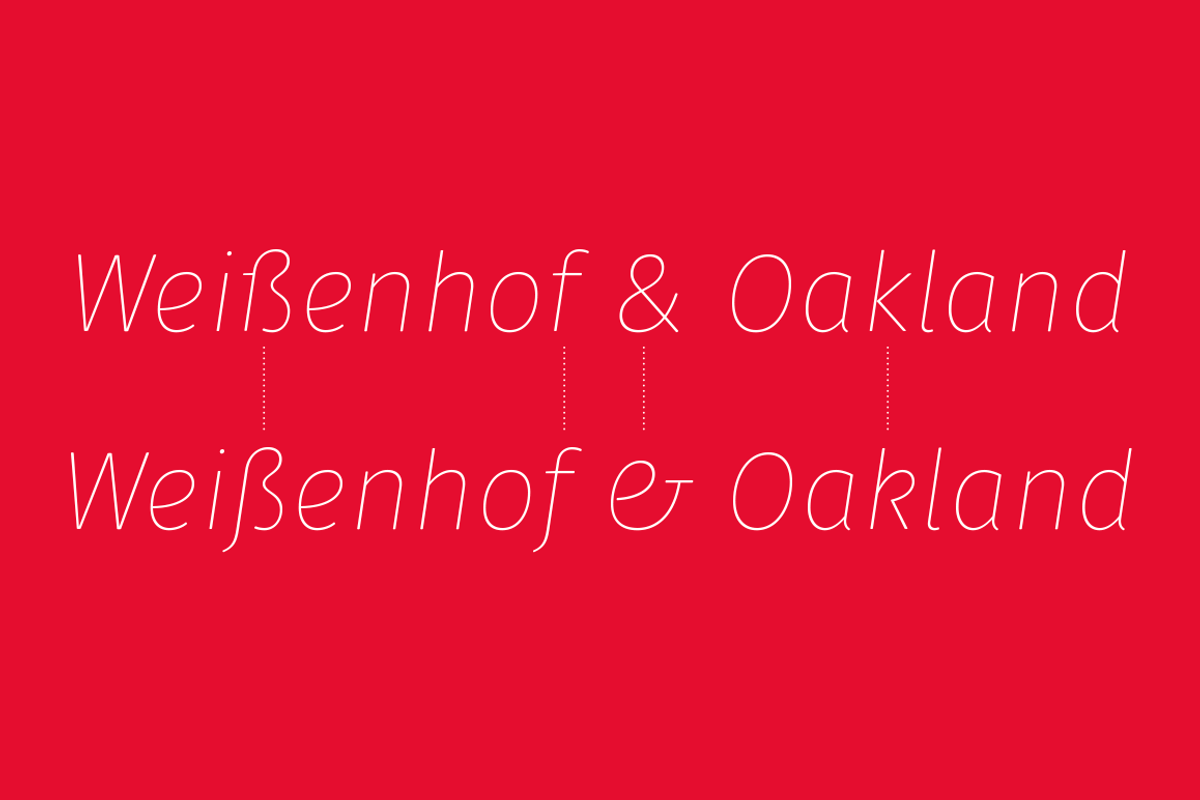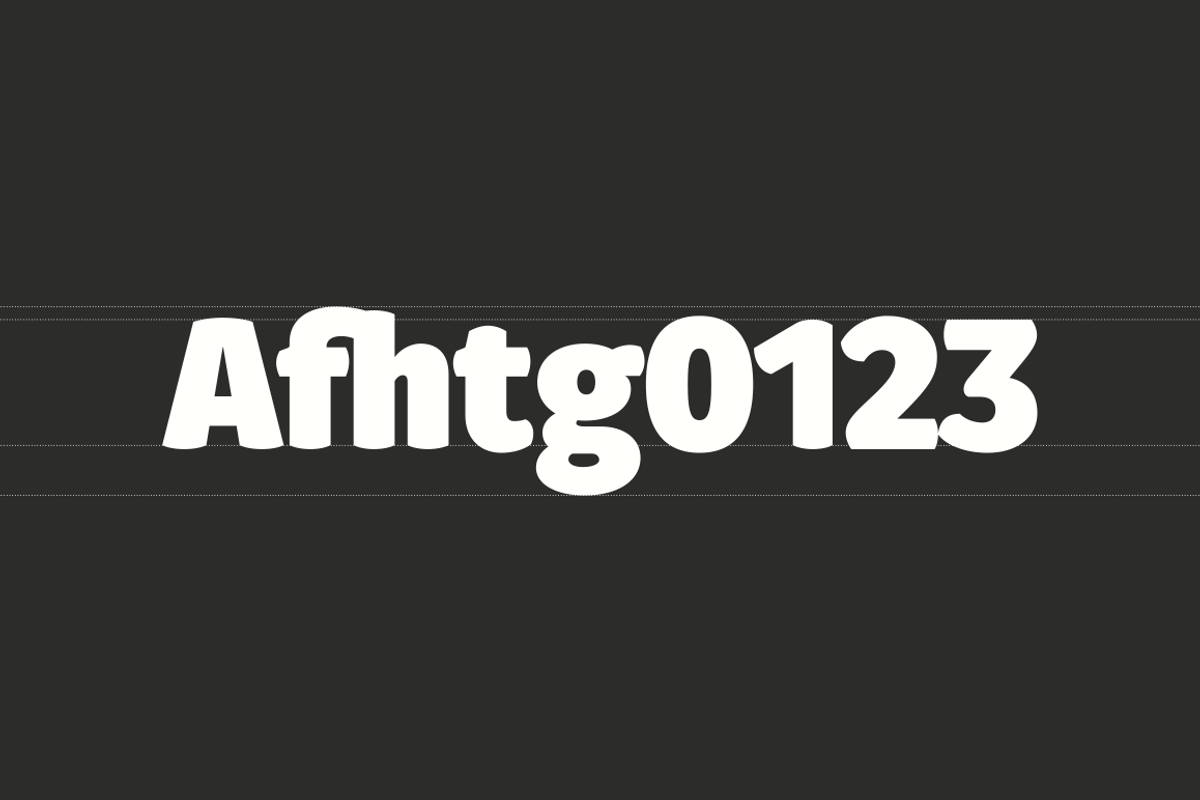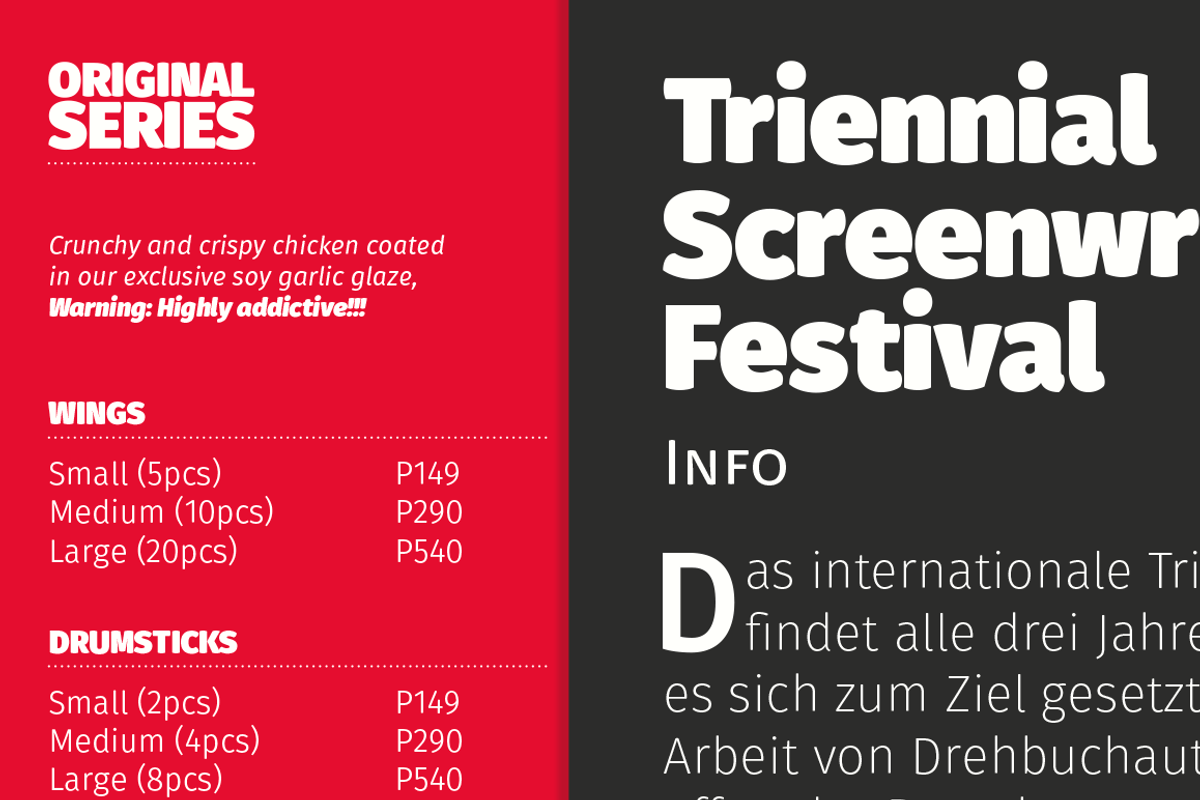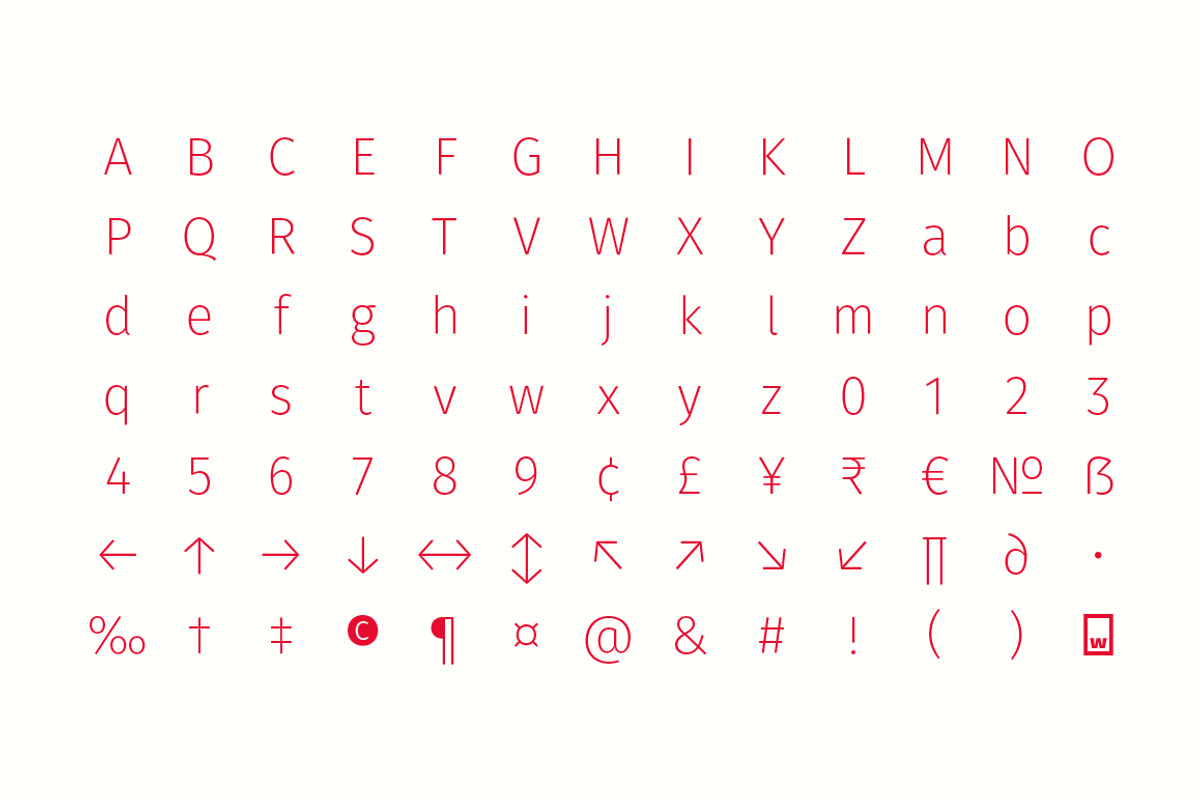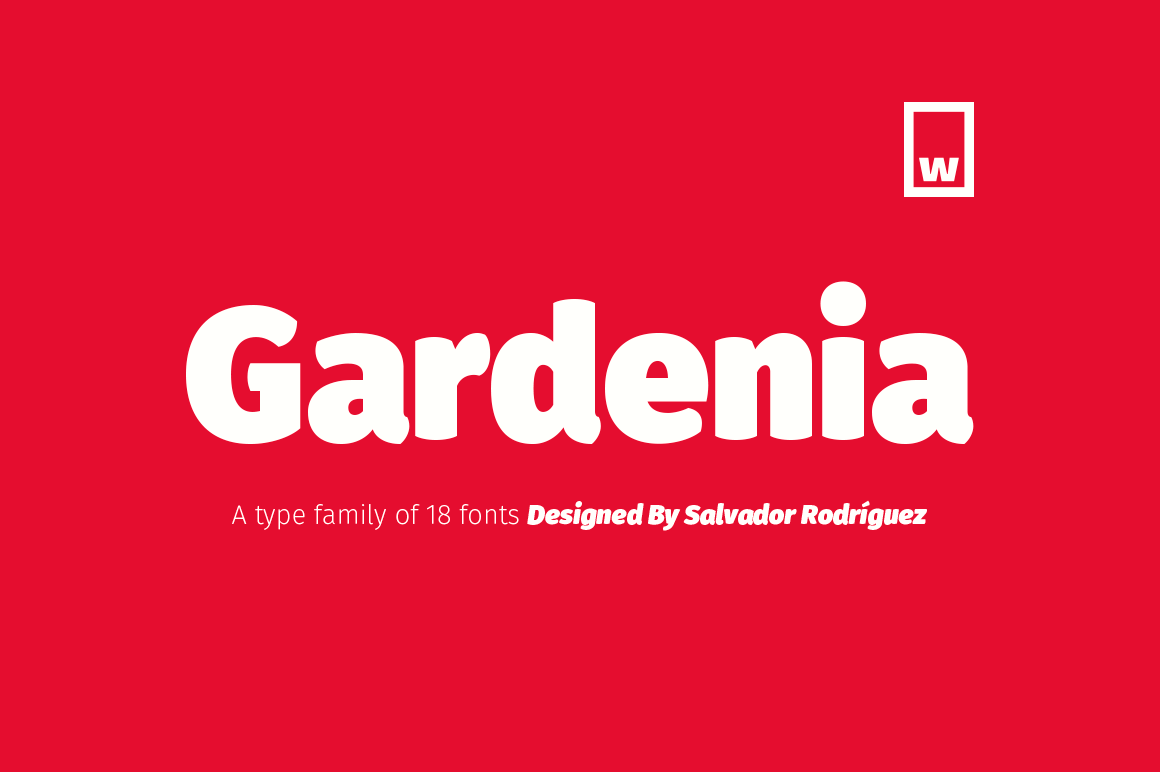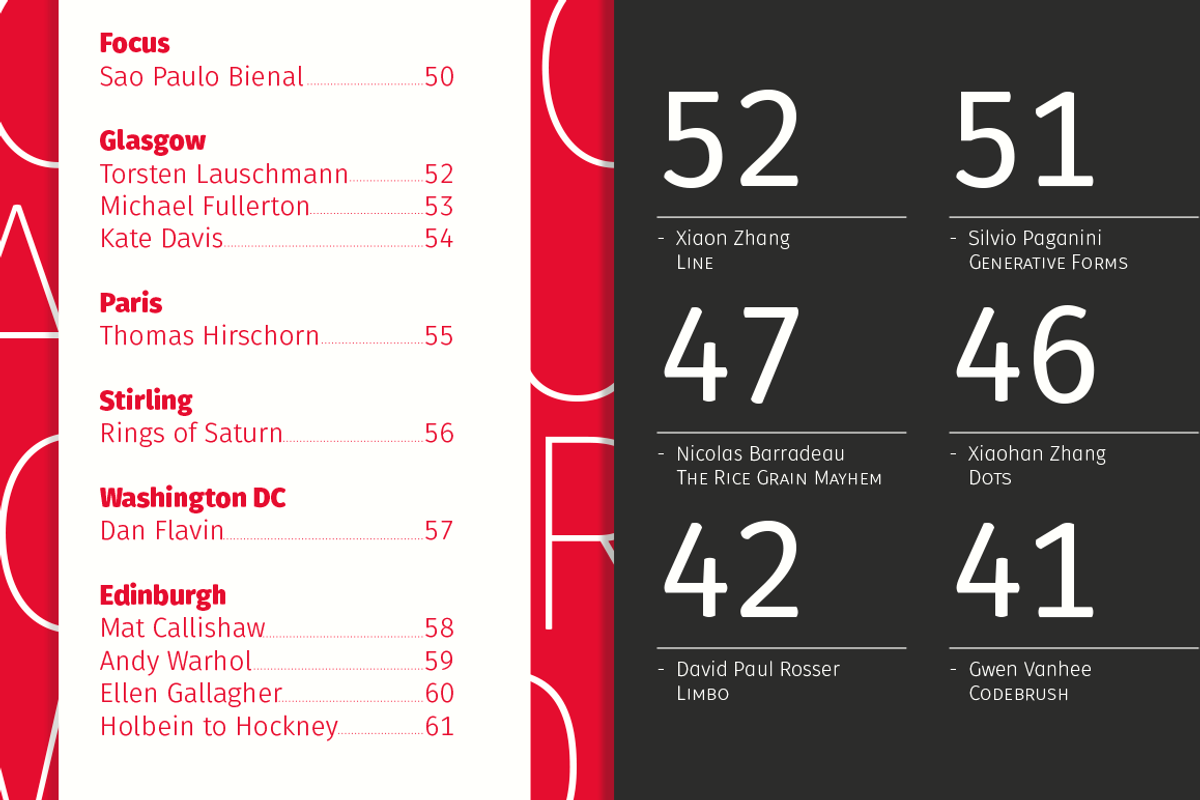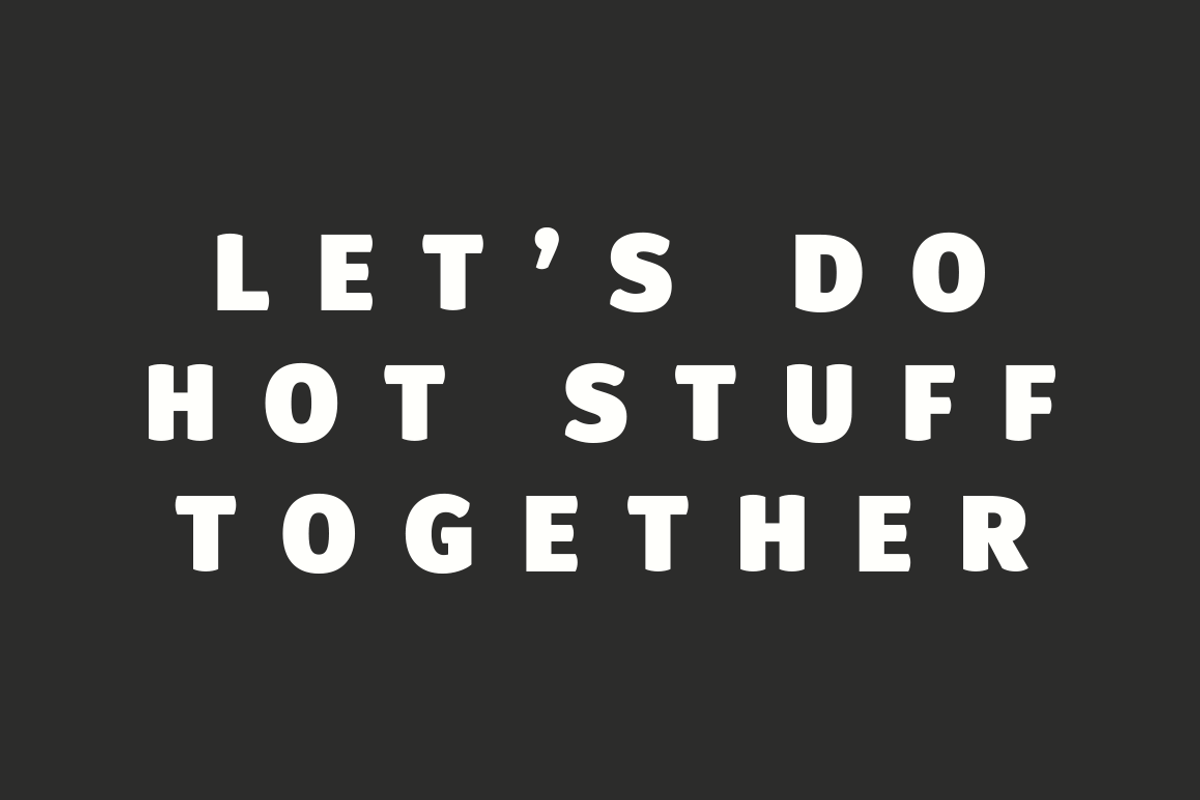
Gardenia is a grotesque typeface, comprised by 9 variants plus their equivalents in italics. Its more outstanding feature is its pompous and soft terminations, which grant it kind, organic and sensual rhetoric. Its light weights were designed to save space within the text block, without loosing its readability; medium weights are ideal for more extensive reading and heavier weights work as display variants.
Gardenia has uppercase, lowercase, small caps, old and modern numbers, superscripts and subscripts and a wide range of alternative glyphs, which amount to more than 700 glyphs per weight. It is the ideal font for screen, posters, logos and everything related to the ways of representing language.
Gardenia was designed by Salvador Rodriguez.